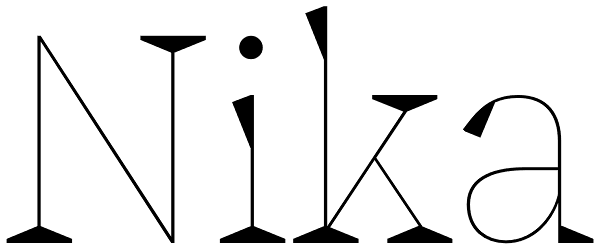
Nika
Nika is a display face with a quirky personality. Born as part of an experiment in contrast within typeface development, Nika has a thin body with chunky serifs. She is simultaneously sleek and playful, legible and distinct. As part of a magazine...